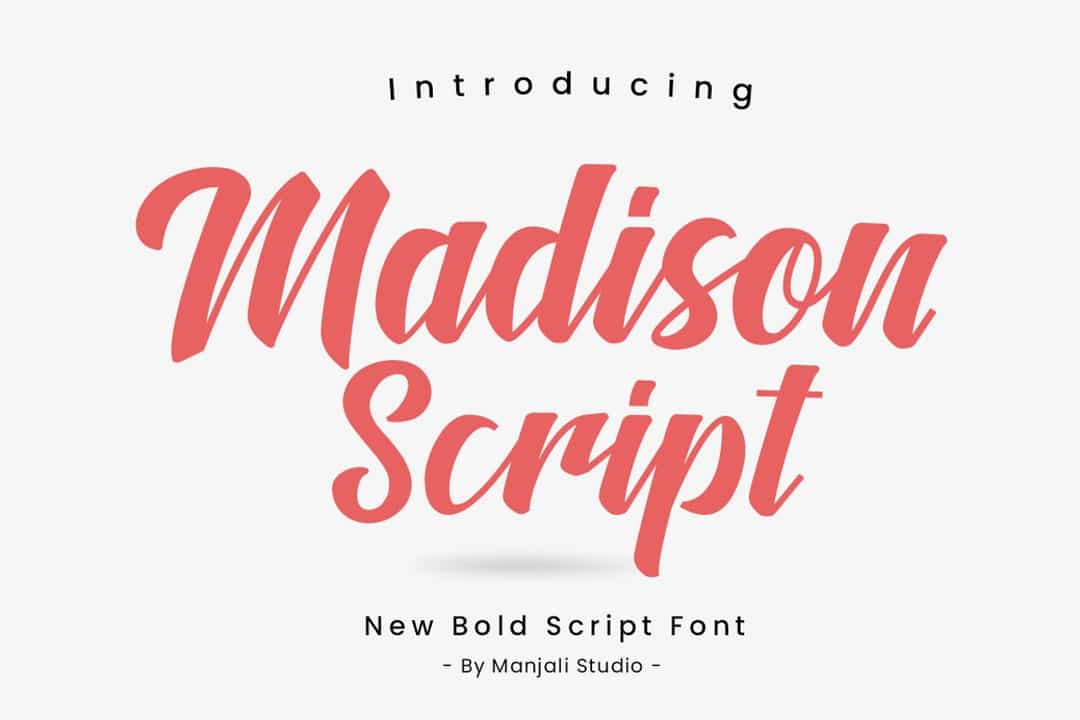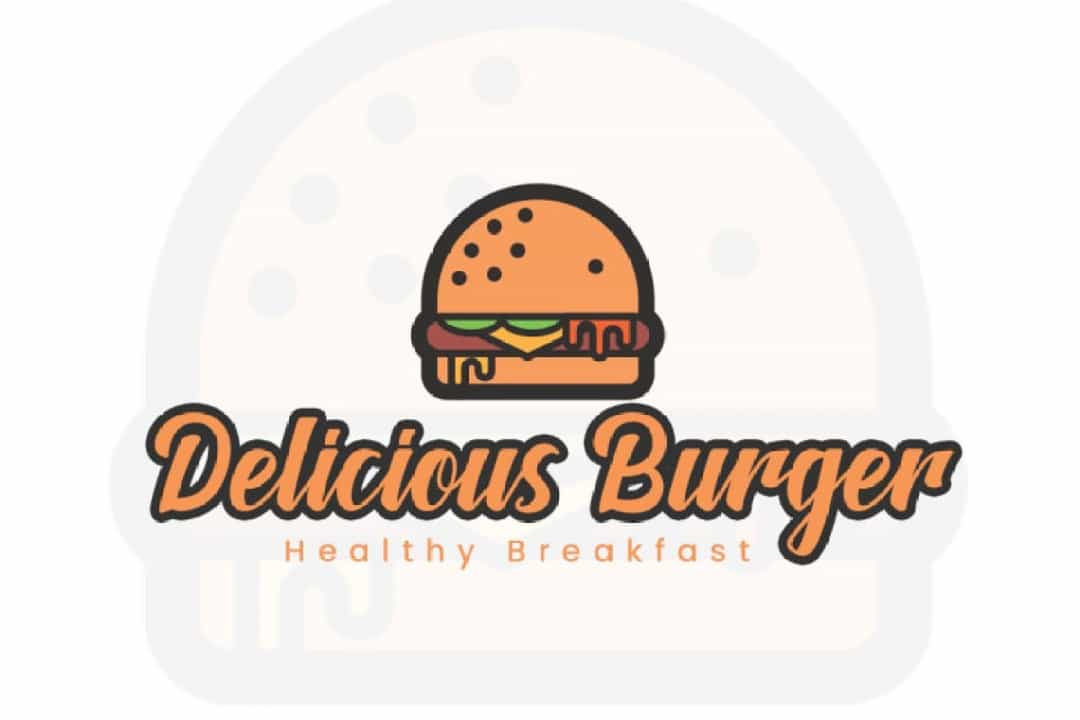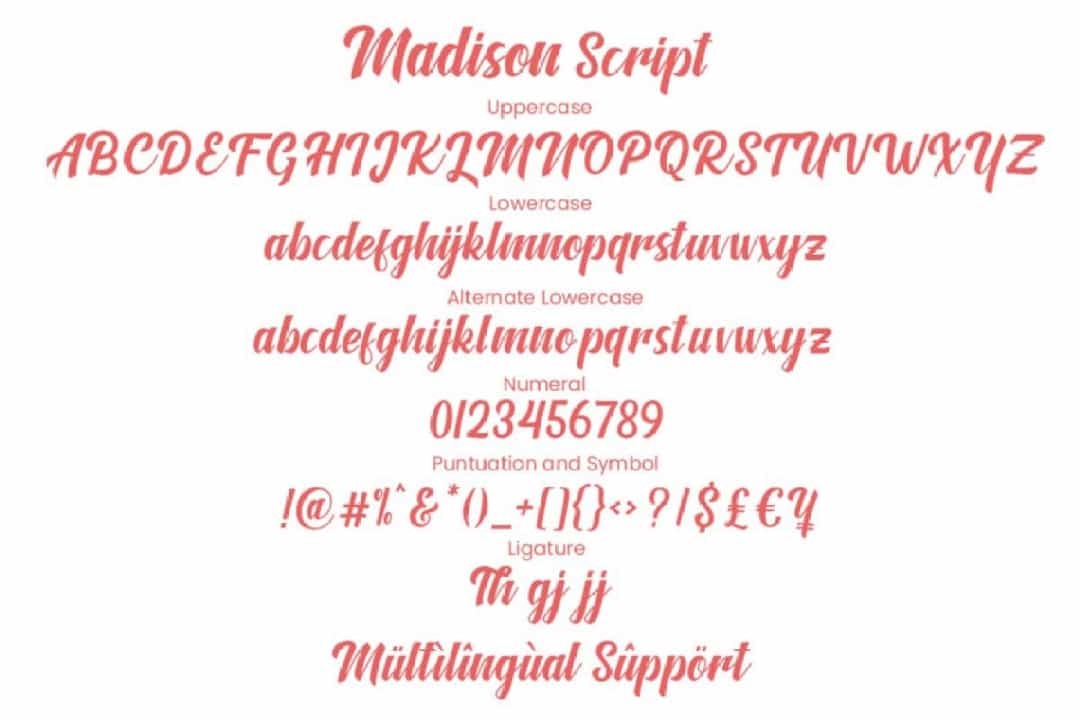
Madison is an elegant handwritten font ideal for branding headers on social media sites, packaging of products, invitations to weddings, cards and so forth. Drawn by hand and featuring ligatures to recreate natural handwriting perfectly.